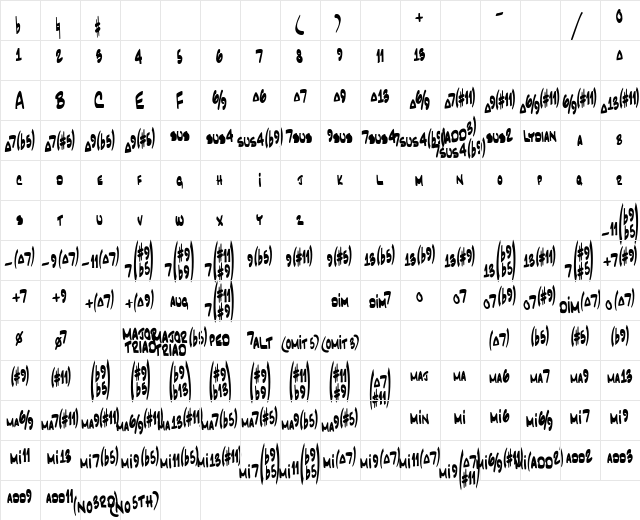
JazzCord Regular
Design Context for JazzCord Typeface
JazzCord is a composed and adaptable typeface that performs quietly and consistently across a wide range of design contexts.